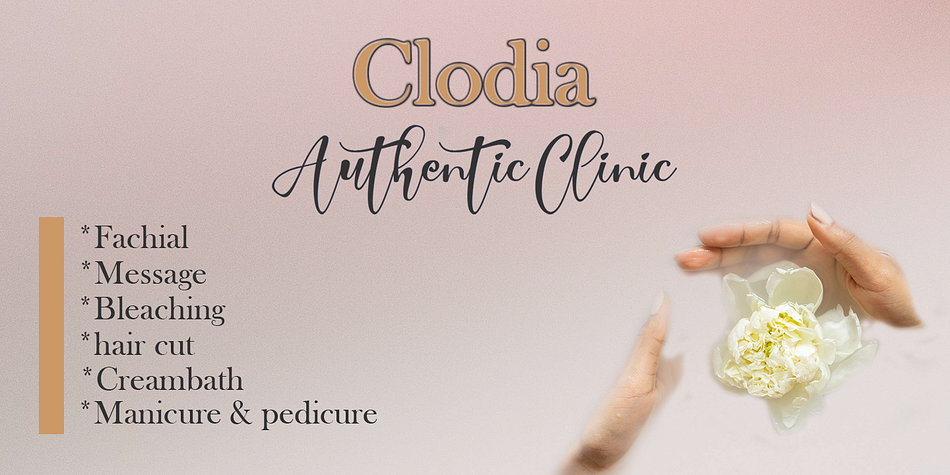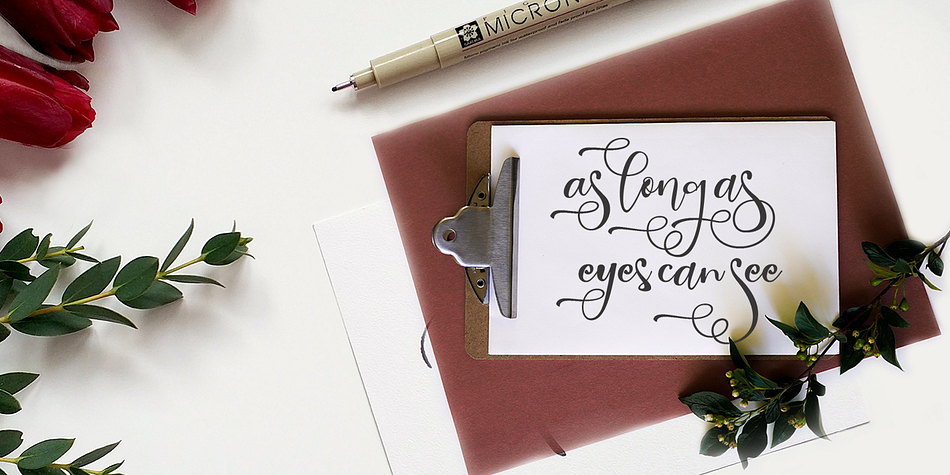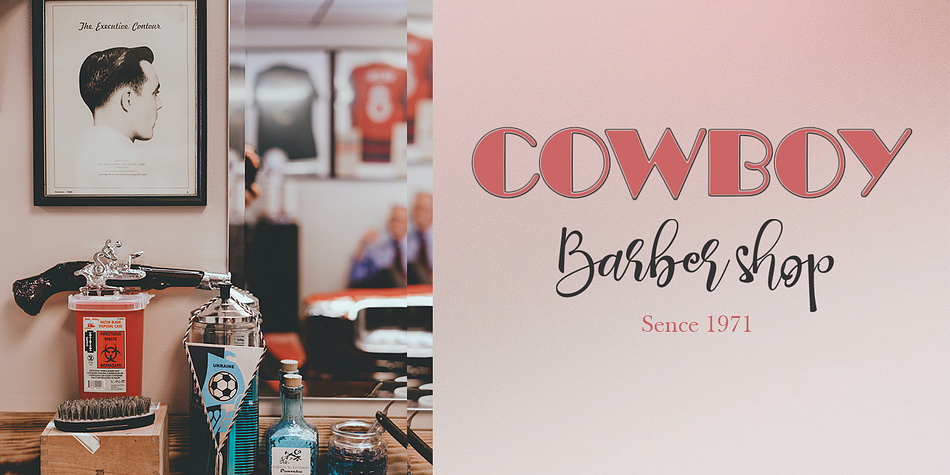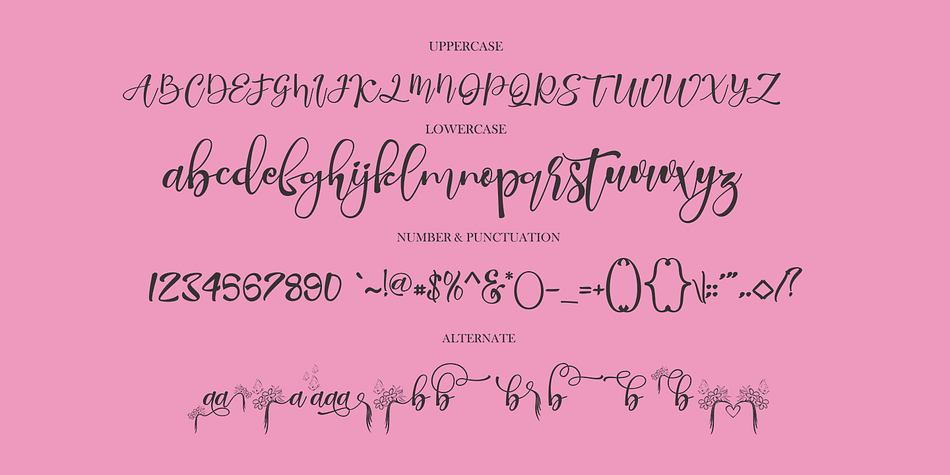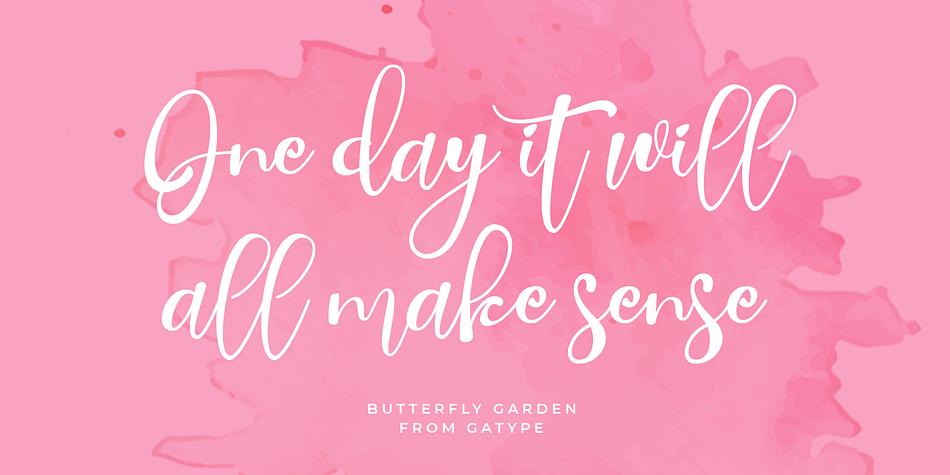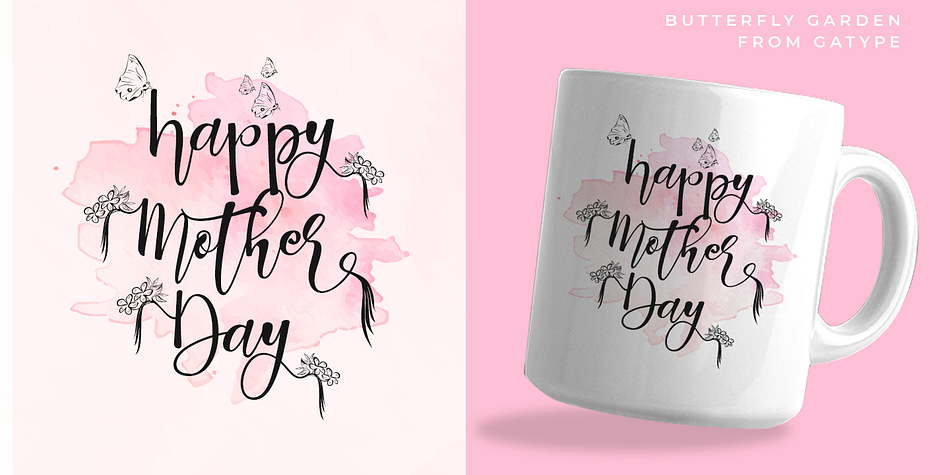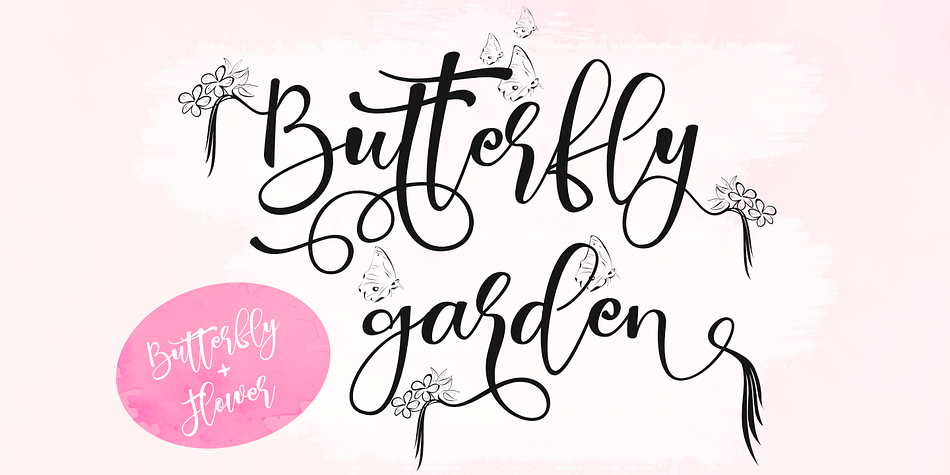
Butterfly Garden
Butterfly Garden is a modern calligraphy font family published by Gatype.
Butterfly Garden is a very unique handwriting, The shape is modern and the modern calligraphy font style is very natural. This font has the potential to take any of your creative ideas to the highest level! Butterfly Garden features varied baselines, beautiful glyphs, and stunning alternatives.
Hand-drawn design elements let you create many beautiful typographic designs in an instant such as branding, web and editorial design, prints, crafts, quotes, It’s great for logotypes, wedding invitations, romantic cards, labels, packaging, spelling names and more. Butterfly Garden includes OpenType style alternatives, ligatures, and International support for most Western Languages. To enable the OpenType Stylistic alternative, you need a supporting program such as Adobe Illustrator CS, Adobe Indesign & CorelDraw X6-X7, Microsoft Word 2010 or a later version.